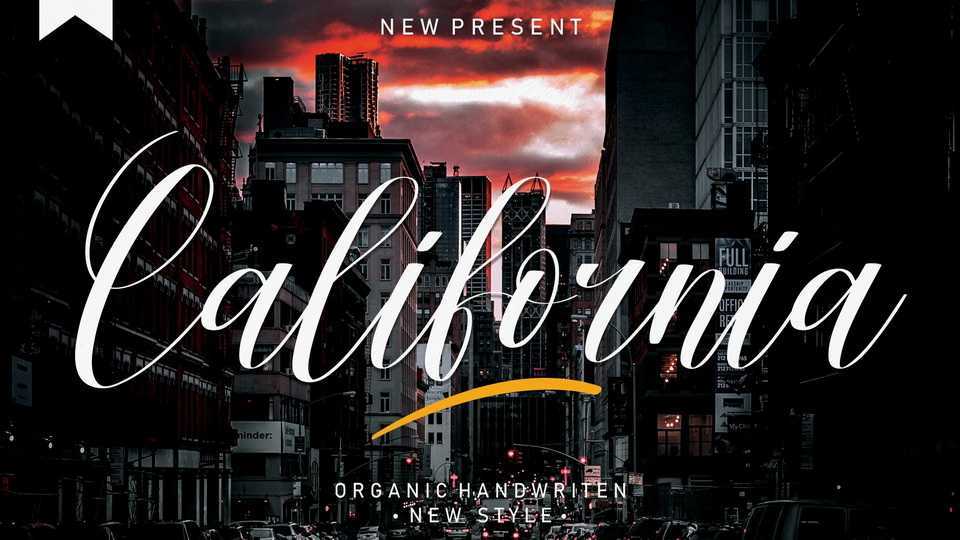
Download California font, a modern and elegant handwritten typeface made of beautiful, creative strokes. California font is perfect for your creative ideas, both formal and informal.